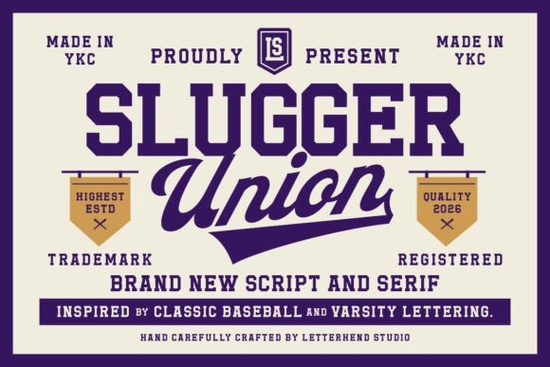
If you're working on a sports-themed design, vintage logo, or retro merch and need typography that feels both tough and timeless, Slugger Union Font is worth a closer look. It’s not just another bold typeface it’s a thoughtfully crafted duo that pairs chunky slab-serif letterforms with a fluid, hand-drawn script. The result? A font that captures the energy of classic team spirit without looking dated or generic.
This kind of hybrid approach works especially well when you want contrast: think headlines in the blocky serif for impact, paired with script subtitles or player names for personality. Whether you’re designing t-shirts for a local baseball league, posters for a high school pep rally, or branding for a craft beer named after a 1940s slugger, Slugger Union brings cohesion and character in one package.
What makes Slugger Union stand out from other sports fonts?
Many athletic fonts lean heavily into aggression sharp angles, aggressive outlines, or overly distressed textures. Slugger Union avoids that trap by balancing strength with warmth. The slab-serif portion has clean geometry but softened edges, giving it a friendly toughness. Meanwhile, the script side flows naturally, mimicking the kind of lettering you’d see on old-school varsity jackets or stadium signage.
It also includes thoughtful extras: alternate characters, ligatures, and stylistic sets that let you fine-tune the vibe. Need a slightly more formal look? Swap in a cleaner ‘A’ or ‘G’. Want extra flair? Use the swash versions in the script. These details matter when you’re creating something meant to feel authentic, not just loud.
Who should use this font?
It’s ideal for:
- Print-on-demand sellers creating team-inspired apparel, mugs, or wall art
- Small business owners launching a retro-themed product line (think soda shops, barbershops, or breweries)
- Graphic designers working on event posters, sports branding, or alumni merchandise
- Crafters making vinyl decals, embroidered patches, or sublimation designs
How does it compare to similar serif fonts?
If you’ve browsed Creative Fabrica’s serif collection, you might already know fonts like Cornella, which offers elegant high-contrast strokes perfect for luxury branding, or Lawthis, a modern editorial serif with sharp terminals. Then there’s Mogerin, which blends geometric structure with subtle calligraphic influence great for tech or fashion.
But for that specific blend of athletic grit and vintage charm, few fonts hit the same note as Slugger Union. Even Cruel Summer, while stylish and retro, leans more toward 70s disco than 50s dugout. Each has its place, but if your moodboard includes leather gloves, wool jerseys, and scoreboard lights, Slugger Union fits right in.
Tips for using Slugger Union effectively
Because it’s a two-part system, avoid using both styles at full intensity in the same layout. Instead, let one lead:
- Use the slab-serif for headlines, logos, or dominant text it holds its own at large sizes.
- Reserve the script for accents: player names, taglines, or short quotes.
- Pair it with neutral sans-serifs (like Montserrat or Helvetica) for body copy to keep focus on the display fonts.
- Stick to classic color combos: navy and cream, red and white, or forest green and gold colors that reinforce the heritage feel.
And remember: less is more. One strong typographic statement often beats layering multiple “bold” elements.
Ready to try it?
If you’re already using Creative Fabrica, you can grab Slugger Union alongside complementary fonts like its own dedicated page for licensing details and previews. For new users, the platform’s subscription model gives you access not just to this font, but thousands of others, graphics, and templates all with commercial licenses included.
- Does my project benefit from a mix of strength and nostalgia?
- Will I use both the serif and script, or just one style?
- Do I have a clear use case like merch, signage, or digital branding that justifies a specialty font?
If yes, Slugger Union could be the missing piece that ties your design together with authenticity and punch.